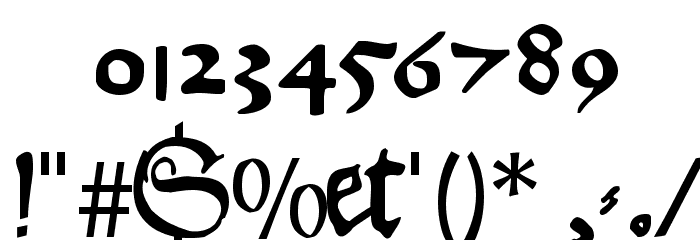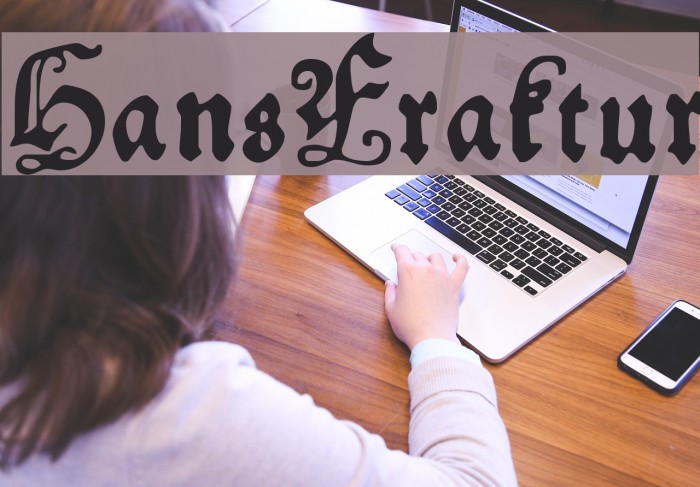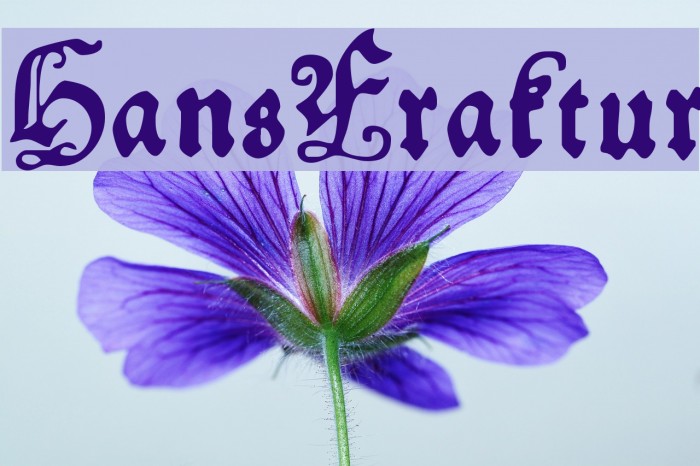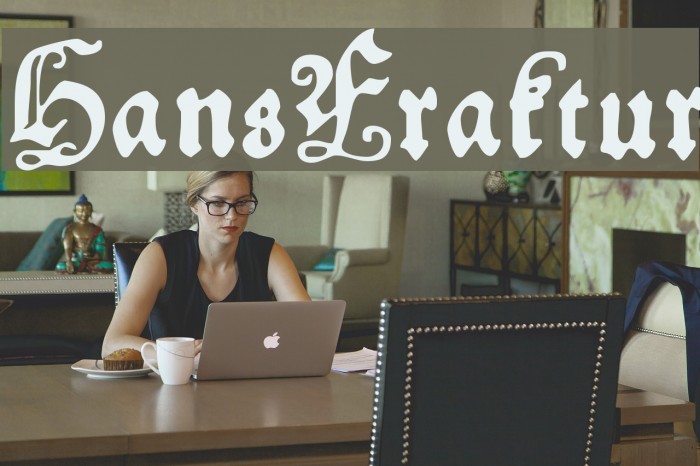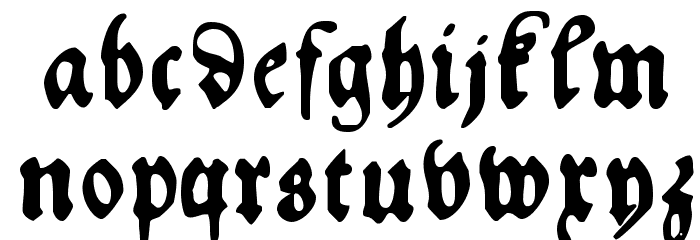
HansFraktur Font
HansFraktur Description
This font embodies the traditional and intricate style of blackletter typography, characterized by its ornate and angular letterforms. The uppercase letters exhibit a strong, bold presence with elaborate flourishes and sharp edges, while the lowercase letters maintain a consistent style with a slightly more subdued flair. The numerals are distinct and maintain the same decorative quality, ensuring readability while preserving the aesthetic. Special characters are equally detailed, fitting seamlessly into the overall design. This font is reminiscent of medieval manuscripts and evokes a sense of historical elegance and formality.
| Proposed Projects | Ideal for projects requiring a historical or medieval theme, such as book covers, posters, or branding for vintage products. |